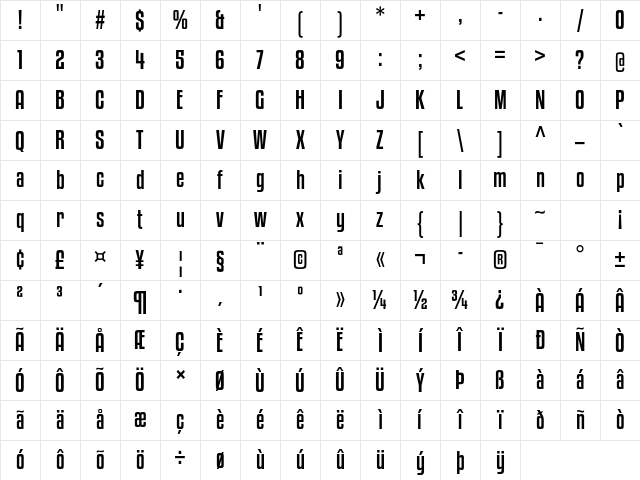
Kenyan Coffee Regular
Foundry: Typodermic Fonts Inc.
Designer: Raymond Larabie
Design Context for Kenyan Coffee
Kenyan Coffee is a composed and adaptable typeface that performs quietly and consistently across a wide range of design contexts.